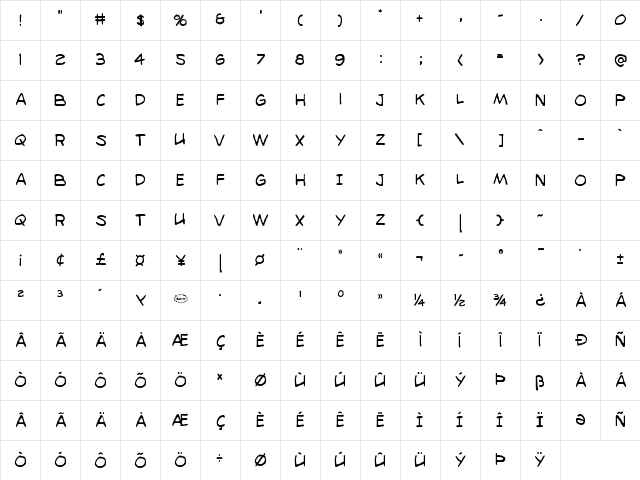
98 Bottles of Beer Condensed Condensed
Design Context for 98 Bottles of Beer Condensed
98 Bottles of Beer Condensed is a composed and adaptable typeface that performs quietly and consistently across a wide range of design contexts. Its narrow stance lets it pack a punch even in space-constrained designs.